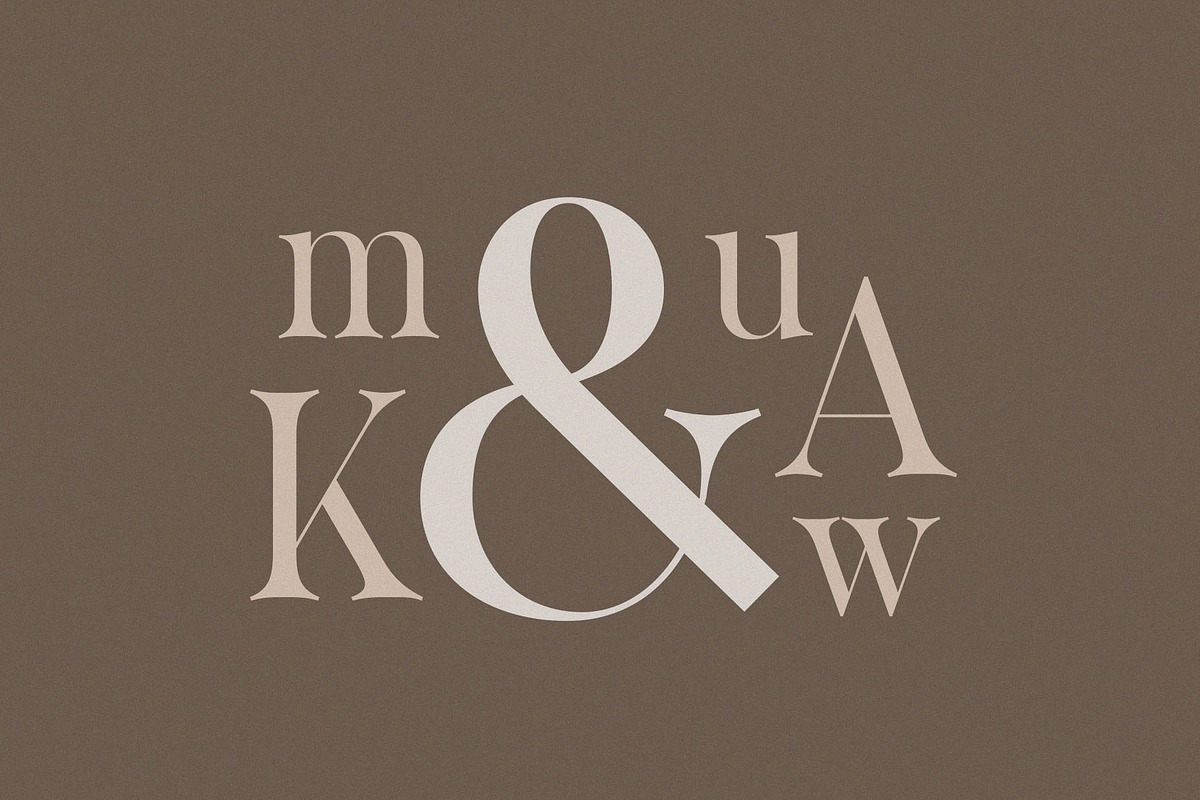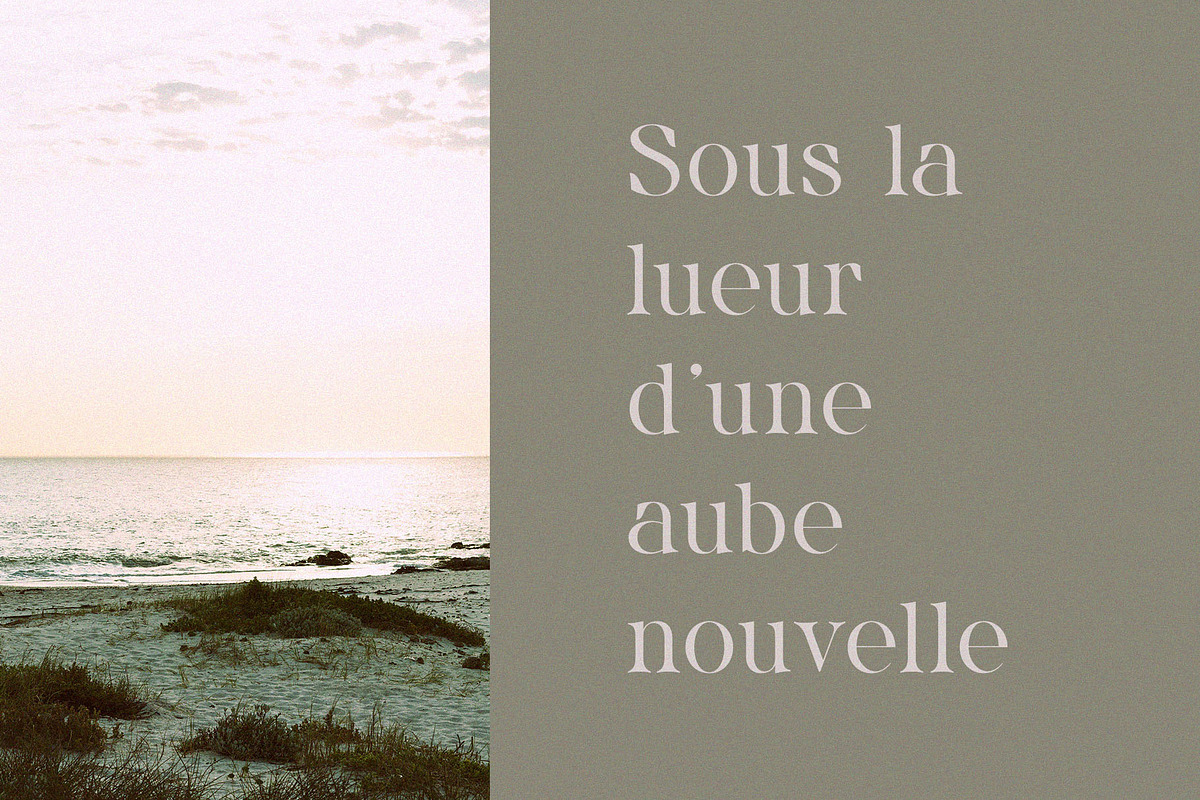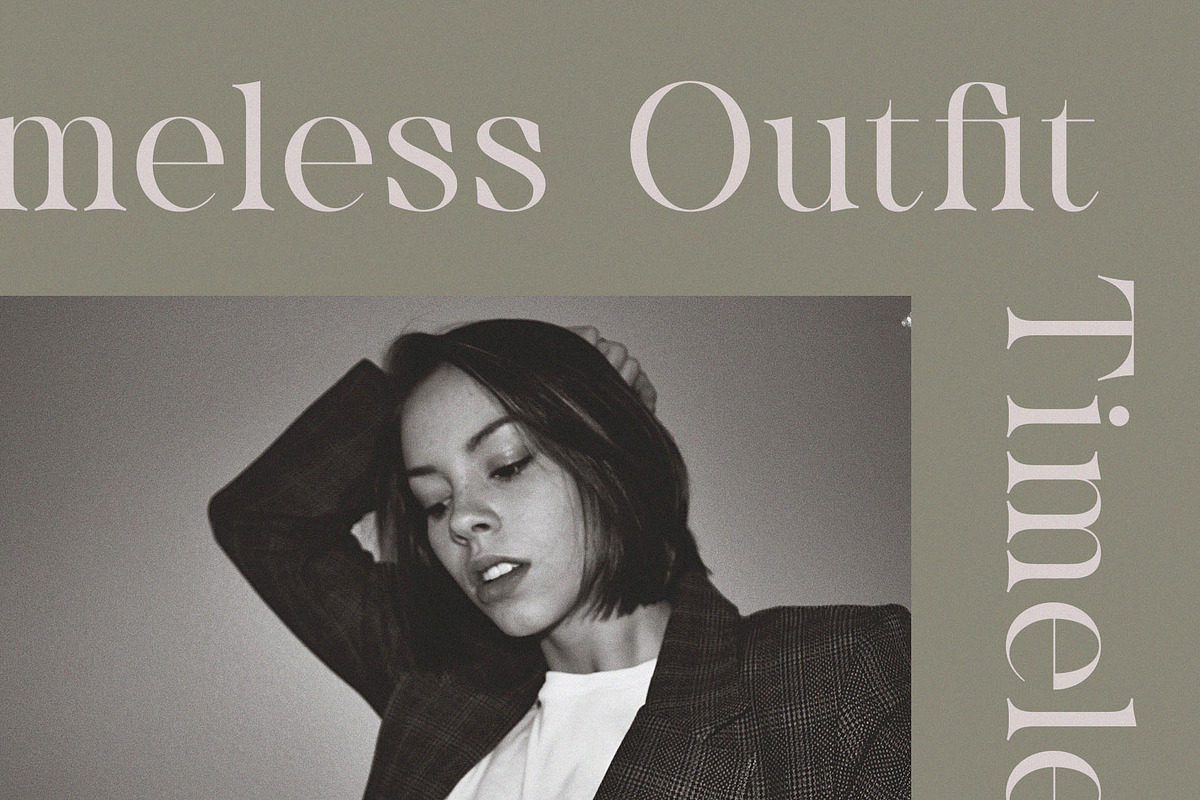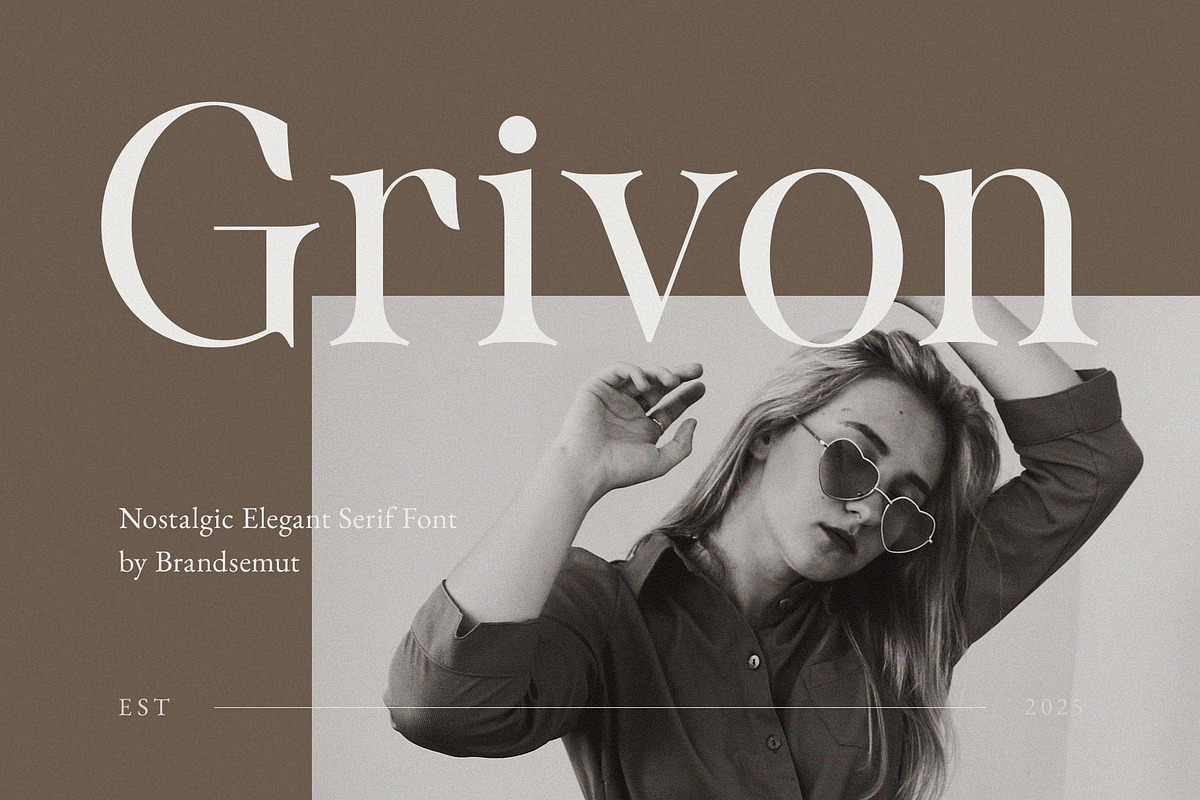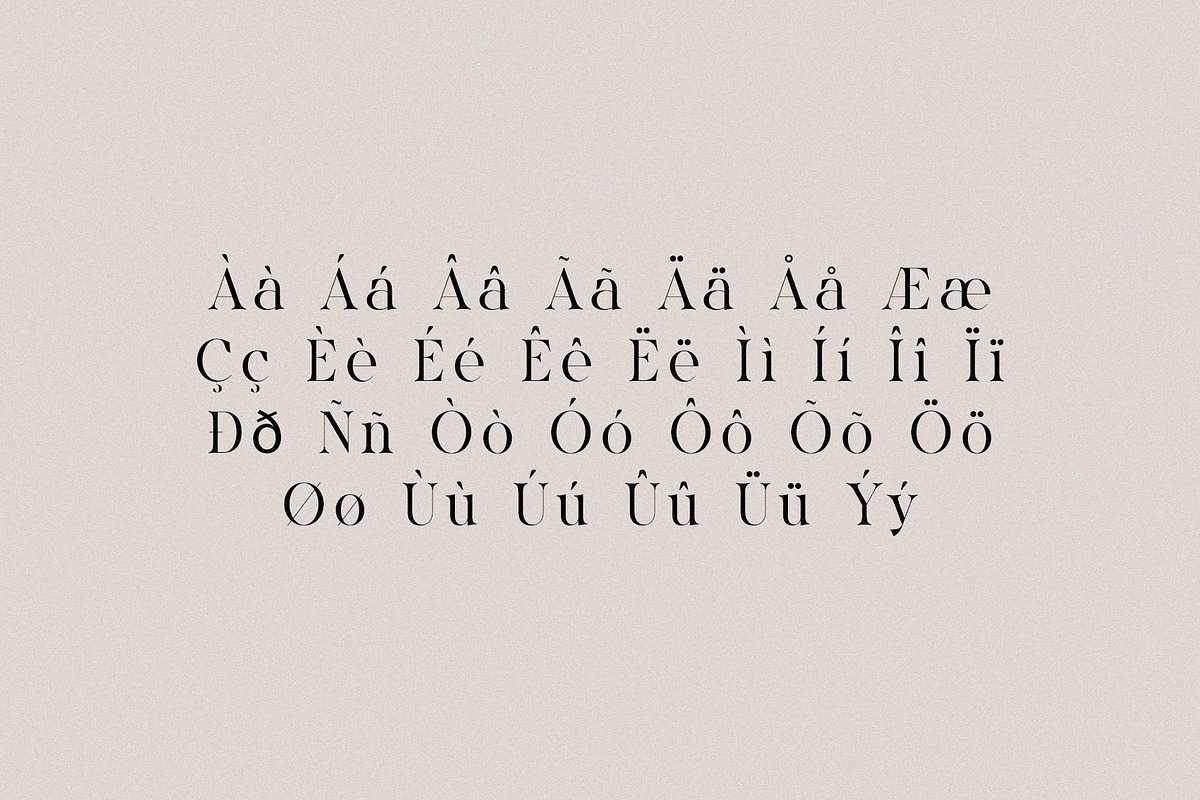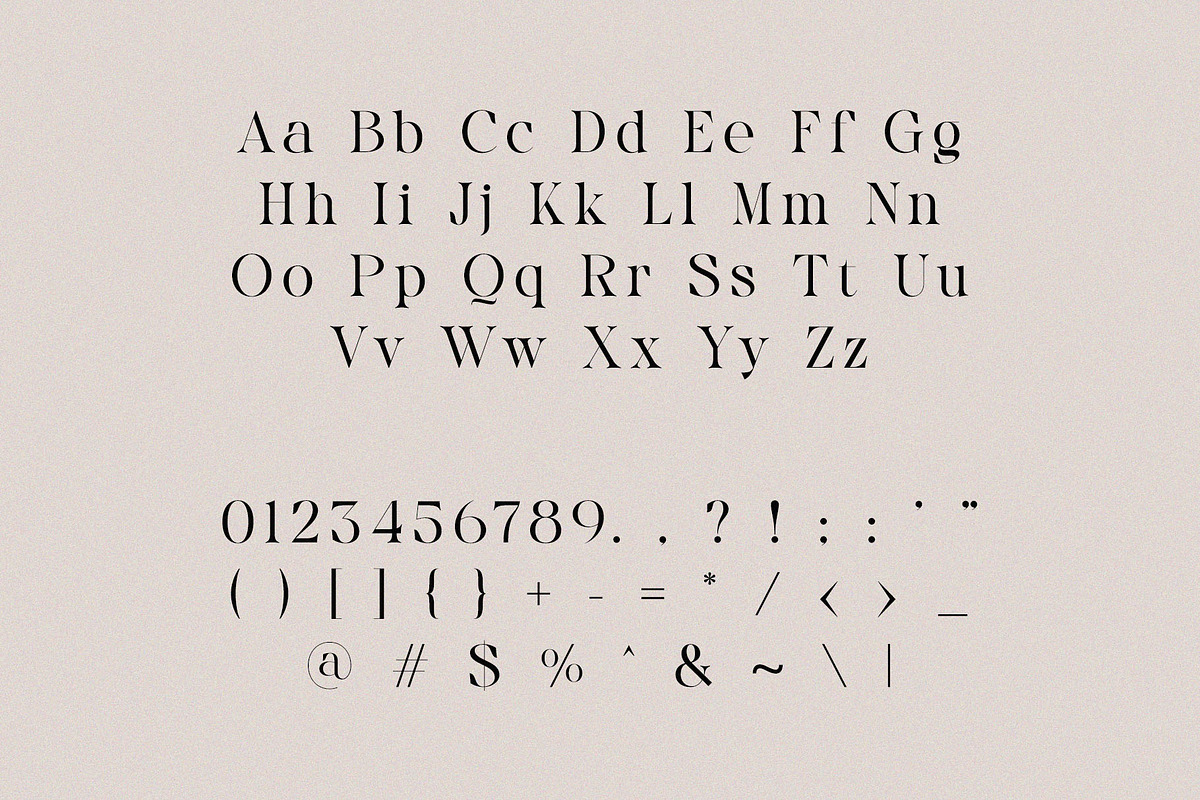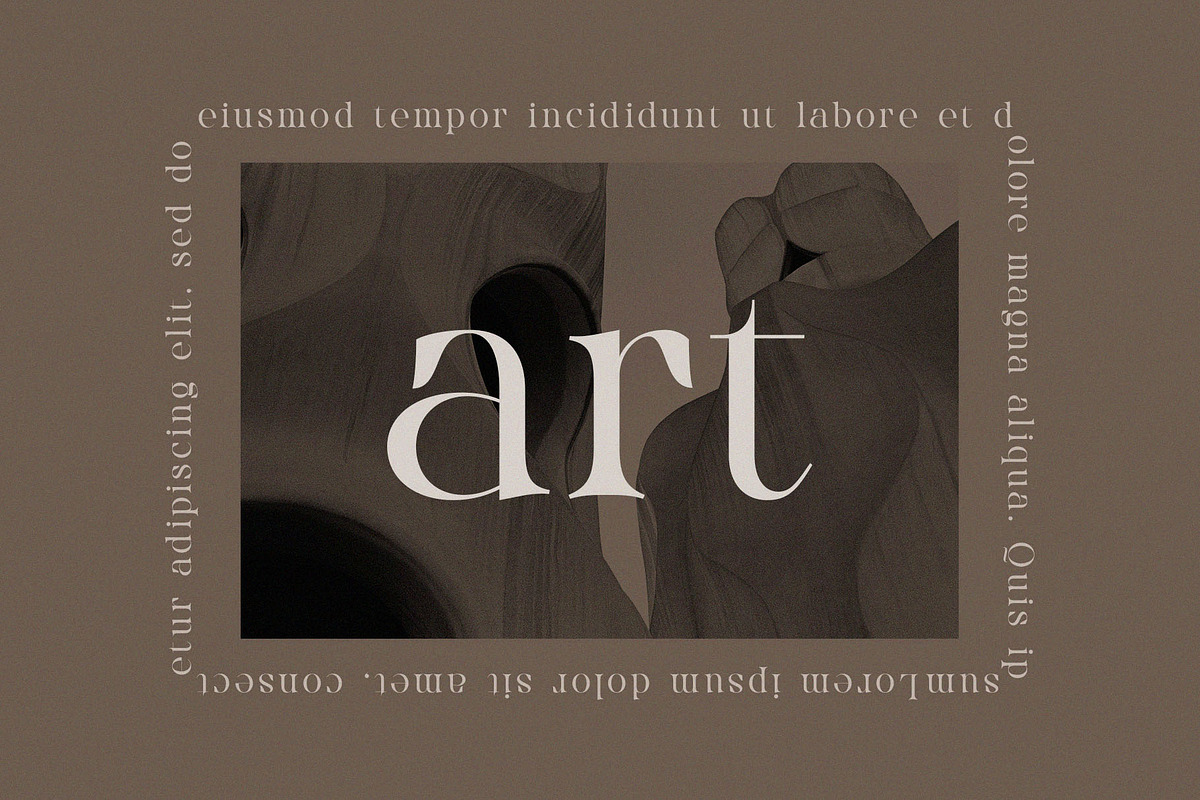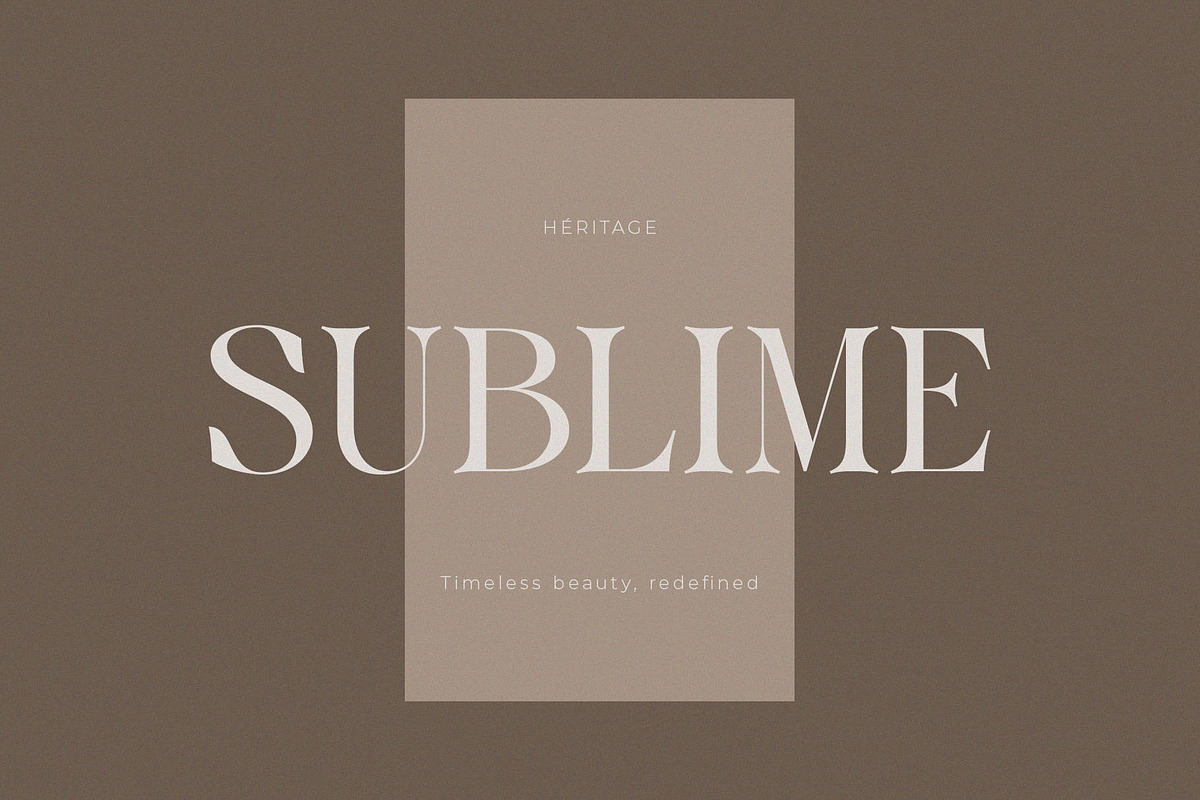
Grivon – Nostalgic Elegant Serif
Grivon – Nostalgic Elegant Serif Font with Uppercase & Lowercase for Vintage Branding & Editorial Design
Grivon is a nostalgic elegant serif font that captures the essence of vintage charm and timeless sophistication. Featuring beautifully balanced uppercase and lowercase characters, Grivon brings graceful curves, sharp serifs, and a soft rhythm that makes it ideal for classic branding, retro packaging, editorial headlines, fashion lookbooks, and artistic visual storytelling.
Perfectly blending old-world refinement with modern readability, Grivon is the go-to typeface for projects that aim to convey elegance, emotion, and authenticity.
Best Used For:
- Vintage-inspired branding & logo design
- Fashion editorials and magazine titles
- Minimalist wedding invitations
- Retro-style posters and product packaging
- Poetry books and creative publishing
- Uppercase & lowercase alphabets
- Elegant high-contrast serif style
- Subtle nostalgic detailing
Bring your design back to the golden era with Grivon, a serif font that tells stories through its graceful letterforms.